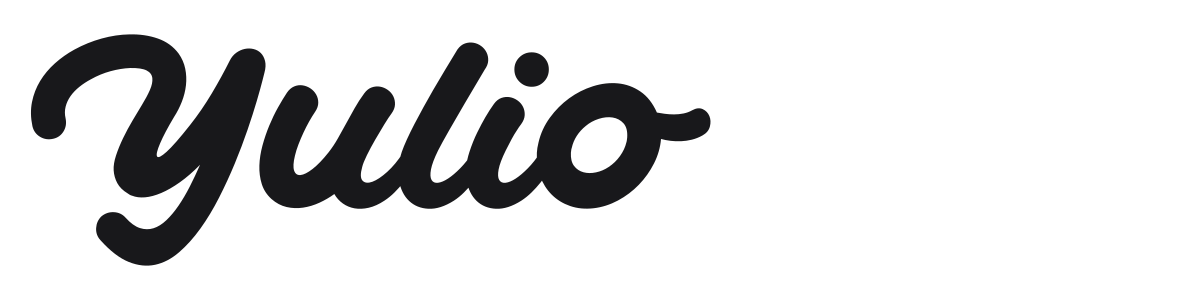
Yulio
Yulio is a bold connected casual script with smooth, flowing strokes and a confident brush-like quality. The rounded forms and strong rhythmic momentum give it a retro warmth that works naturally at large sizes for logos, packaging, and headlines. It draws on mid-century sign-painting traditions without feeling dated.